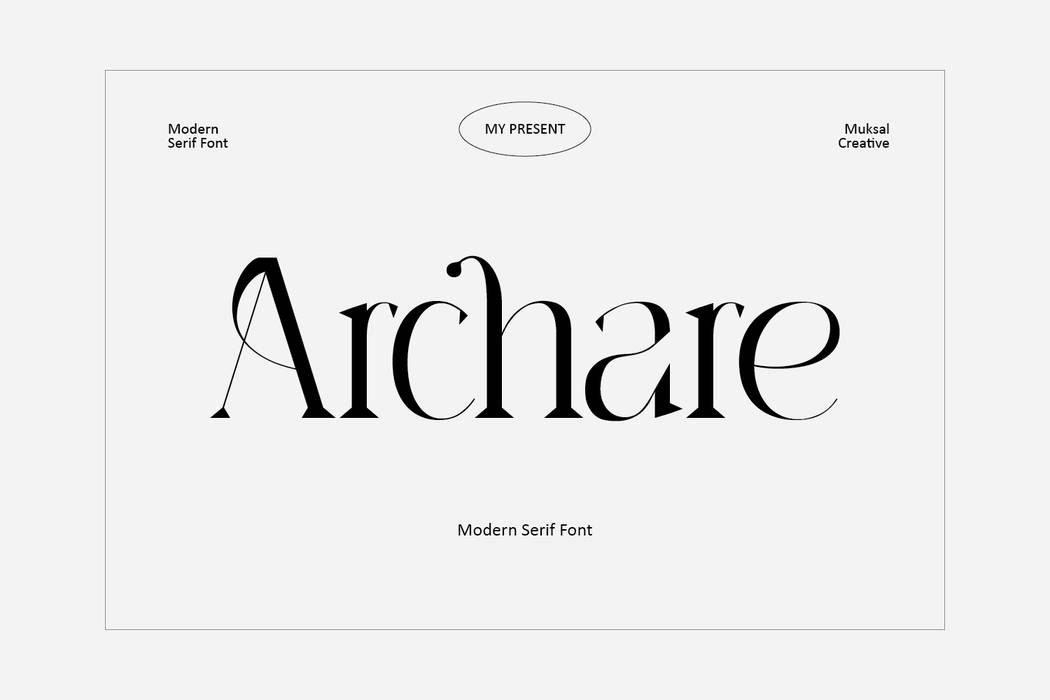
Archare is a stylish serif font characterized by its high contrast between thick and thin strokes, with delicate, sharp serifs and a tall, elegant x-height that gives it a refined, modern feel. Its unique letterforms, including distinctive terminals and a mix of single- and double-story characters, make it perfect for high-end fashion branding, editorial headlines, and luxury packaging where a sophisticated and contemporary look is desired.
Archare Font
About Archare Font
| Font family | Archare Font |
| Designer | Muksal Creative |